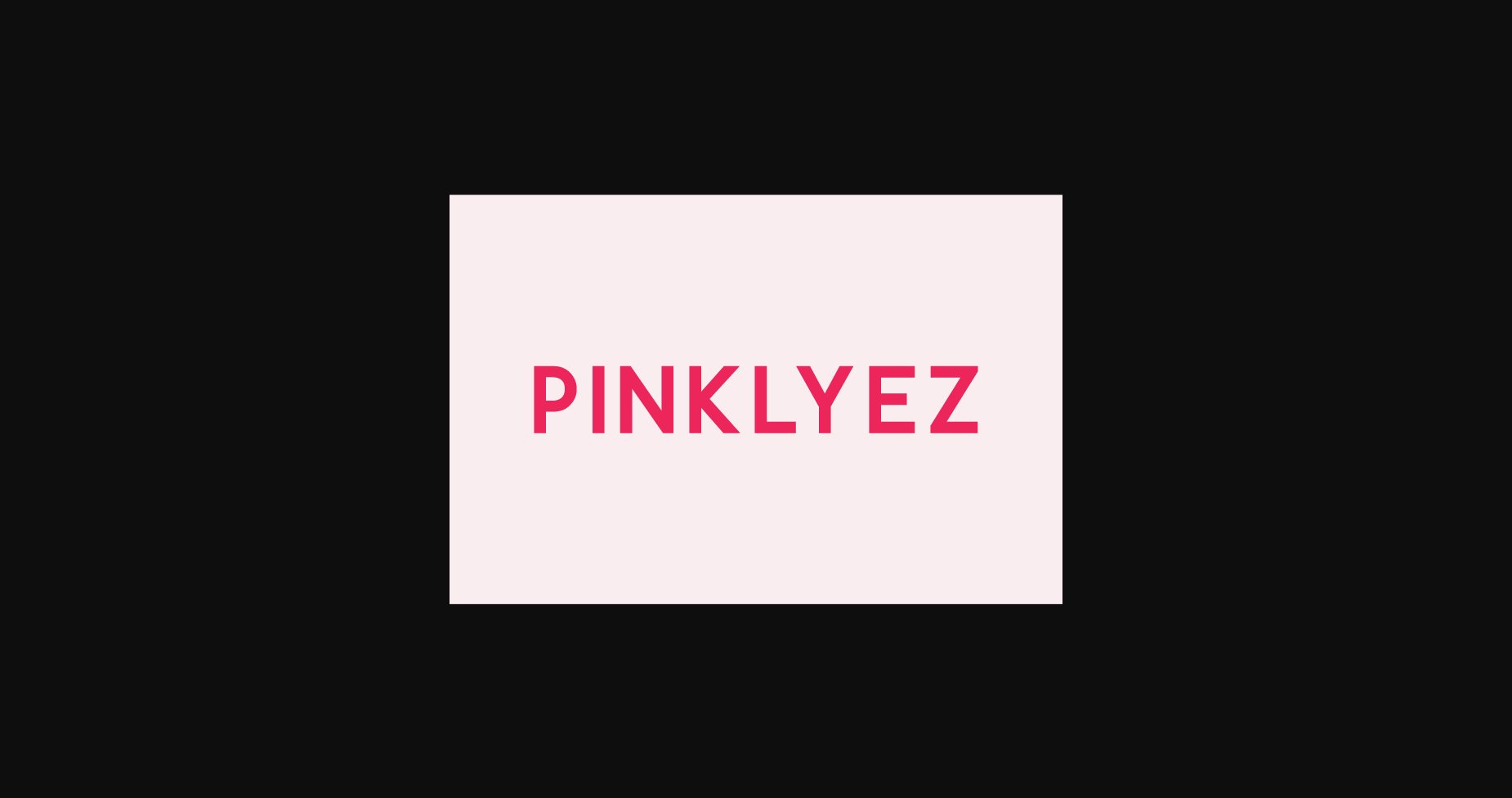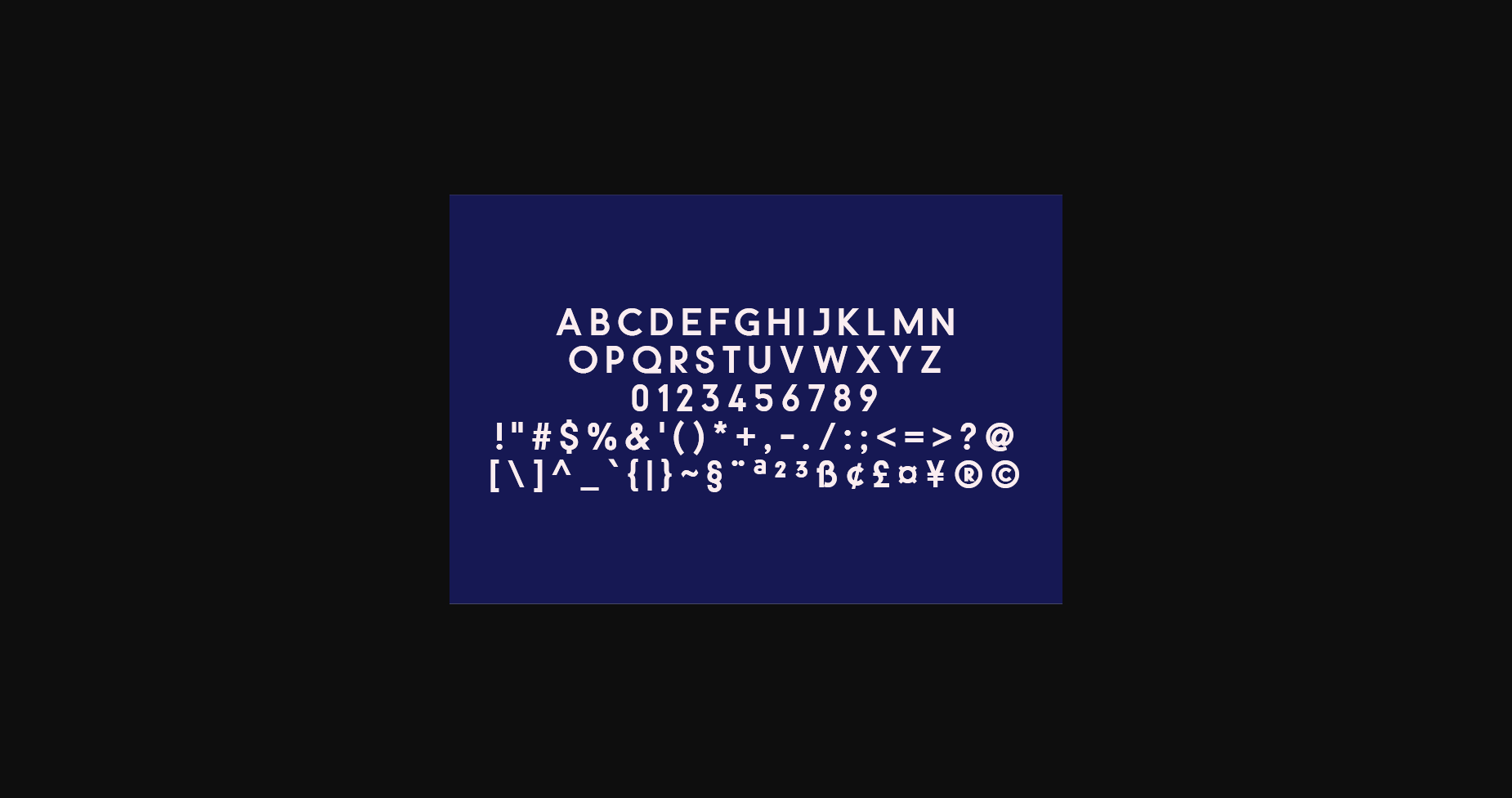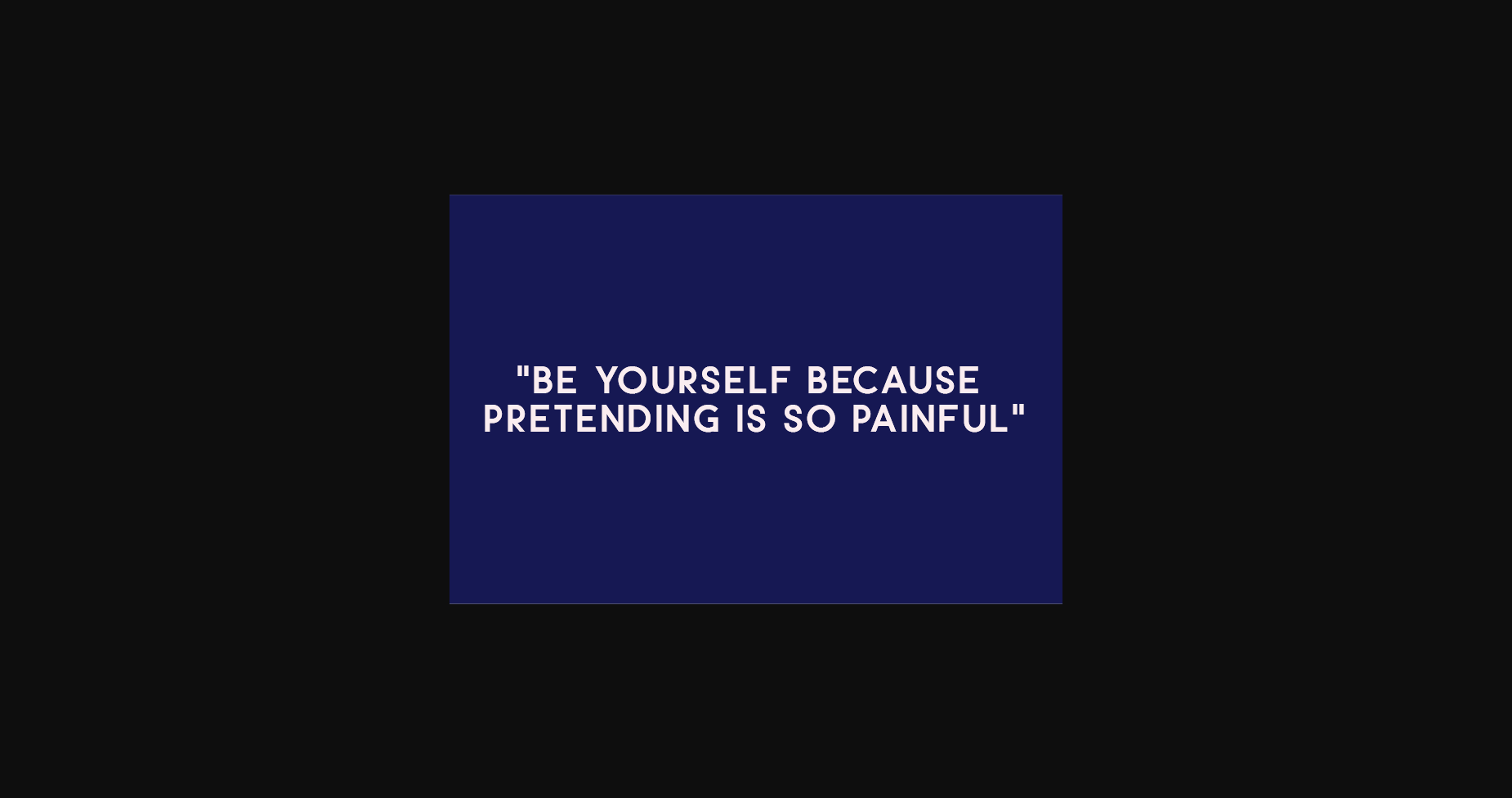
About Pinklyez Font
Pinklyez– this all-caps sans serif is so versatile and looks great in just about any context. With smooth and clean lines and just a touch of contrast, Versailles works beautifully for logos, branding, and web headings.